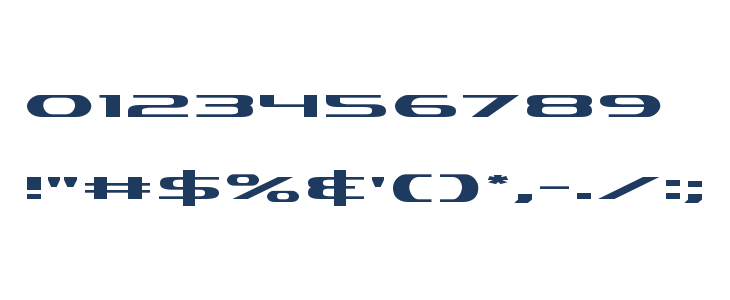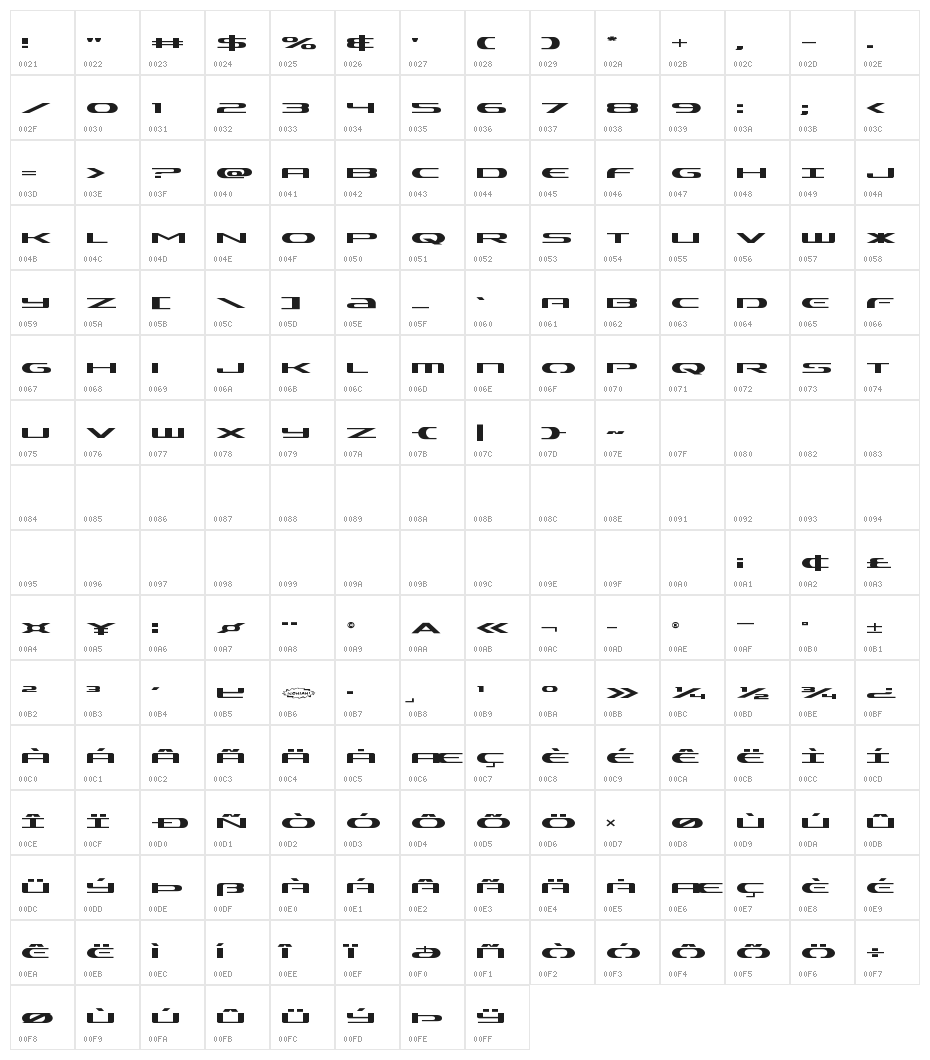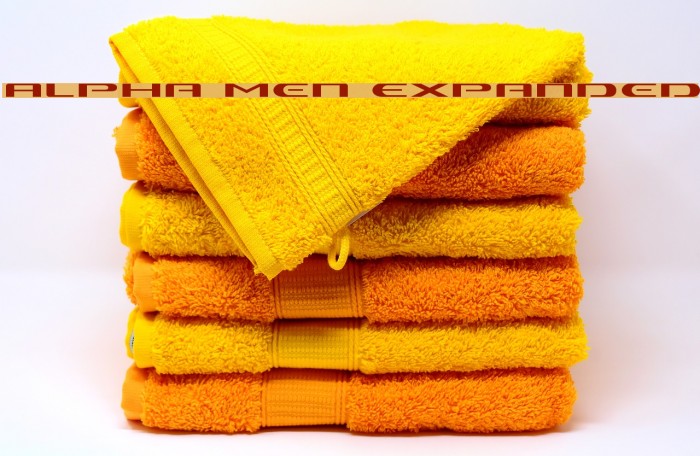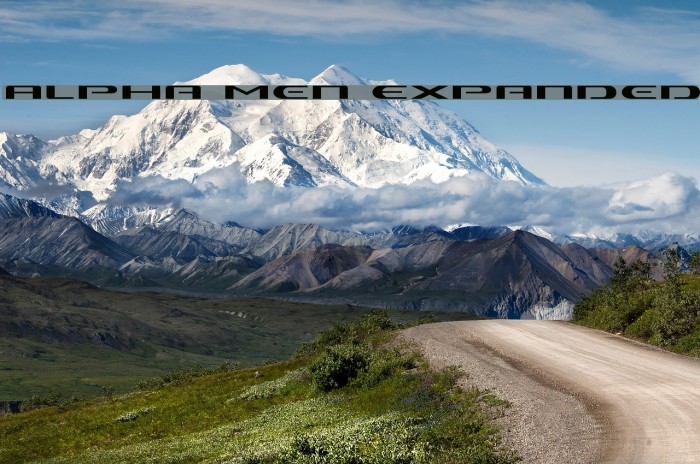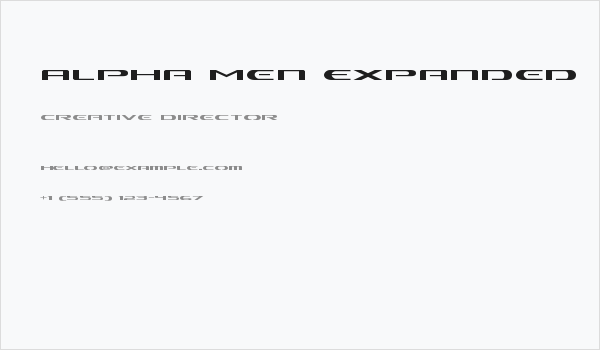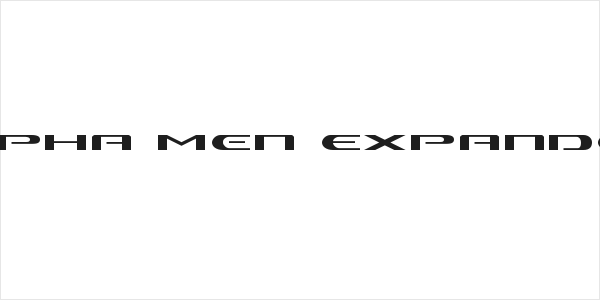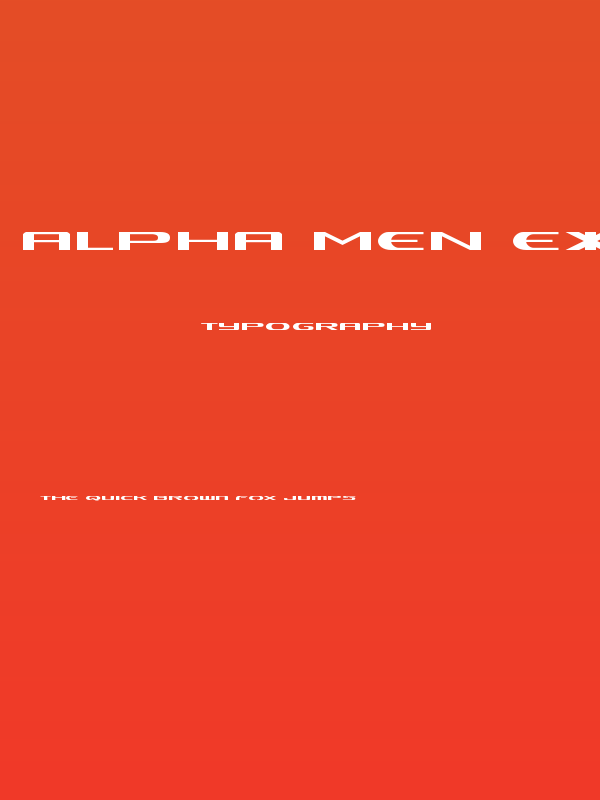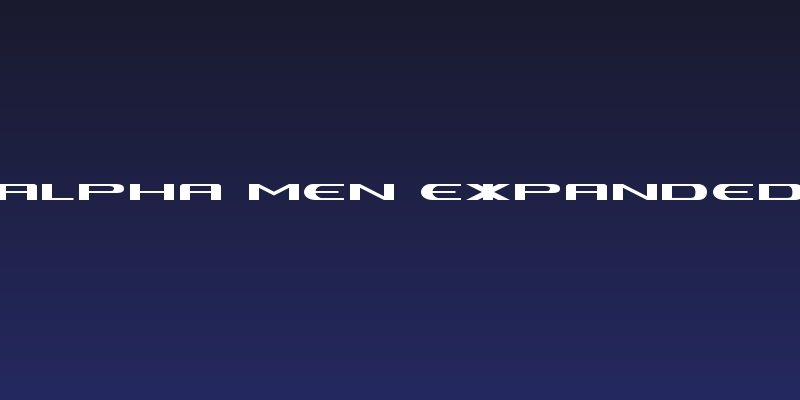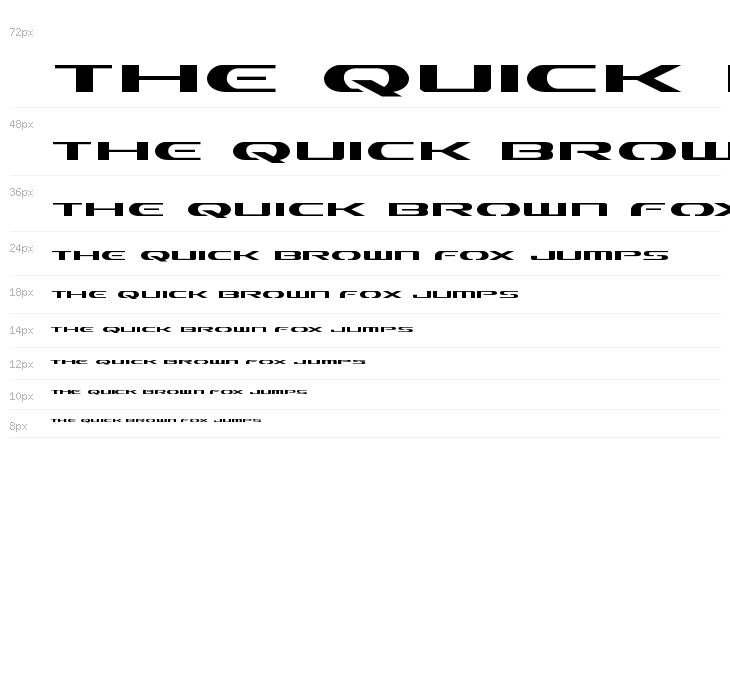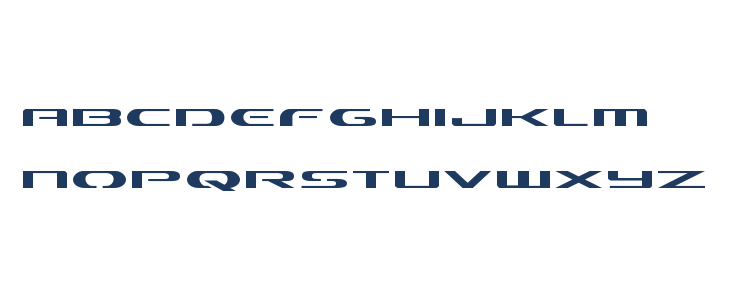
Alpha Men Expanded Font
Alpha Men Expanded Description
This font features a bold and futuristic design with a distinctly expanded width. The characters are crafted with sharp angles and clean lines, giving it a modern and high-tech appearance. The uppercase letters are particularly striking, with a geometric style that emphasizes symmetry and precision. The numerals and special characters maintain this aesthetic, ensuring consistency across all glyphs. This font is ideal for projects that require a strong visual impact and a contemporary feel.
| Proposed Projects | Ideal for technology branding, sci-fi movie posters, video game titles, and modern advertising campaigns. |